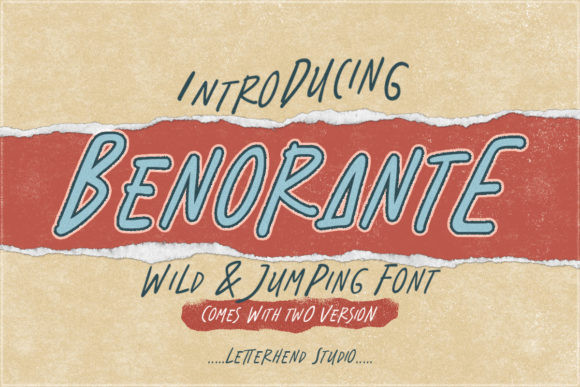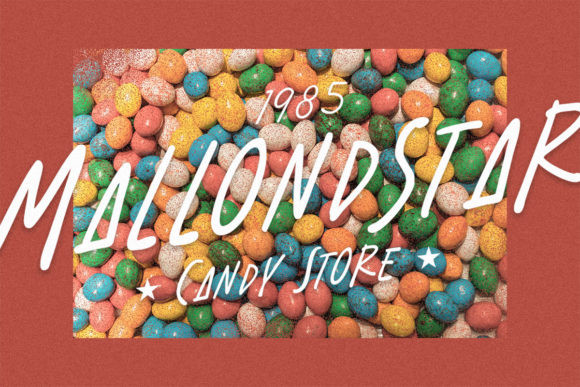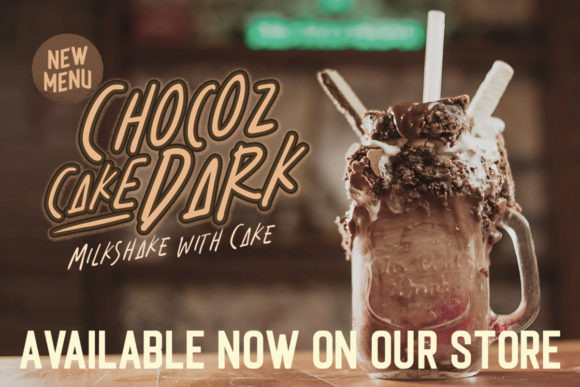
Benorante Font
Benorante is a playful display font. This font is the ideal font for adding an adventurous and authentic feel to your next design idea!